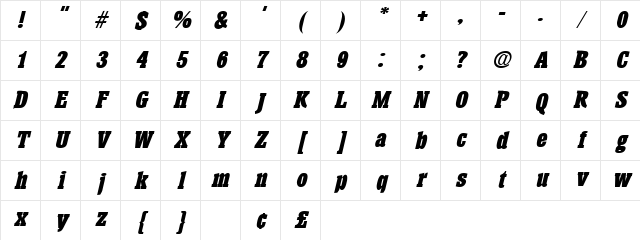
Philip Oblique Free Font
Philip Oblique
Design Context for Philip
Philip is a composed and adaptable typeface that performs quietly and consistently across a wide range of design contexts. The slanted form adds forward momentum and visual energy.